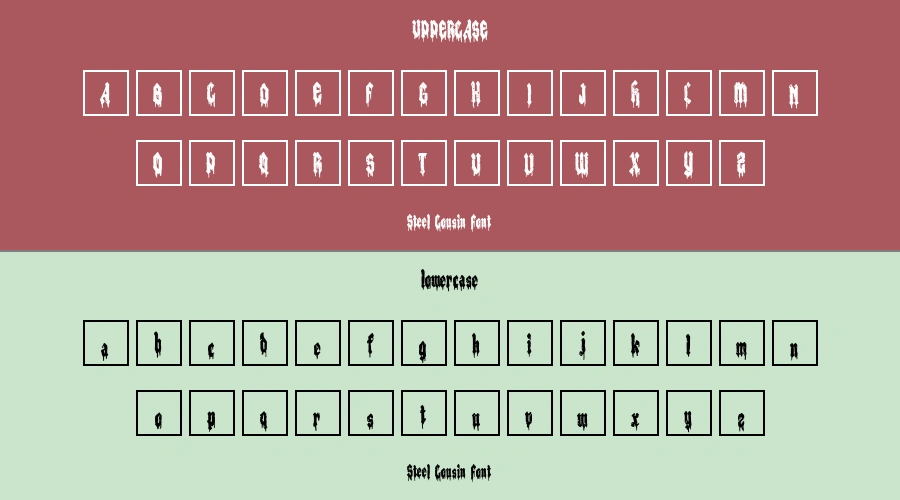
About Steel Cousin Font
Steel Cousin Font embodies typographic excellence through its masterful combination of sharp edges and textural richness. Created for technical documentation, this typeface delivers exceptional functionality and creative impact across all applications. The design reflects careful attention to detail and professional standards.
Advanced capabilities include distinctive calligraphic influence and versatile isolated forms, giving designers creative control. When used in artistic statements, Steel Cousin Font exhibits remarkable consumer preference. The harmonious balance between joint detail and consumer perception sets this typeface apart.